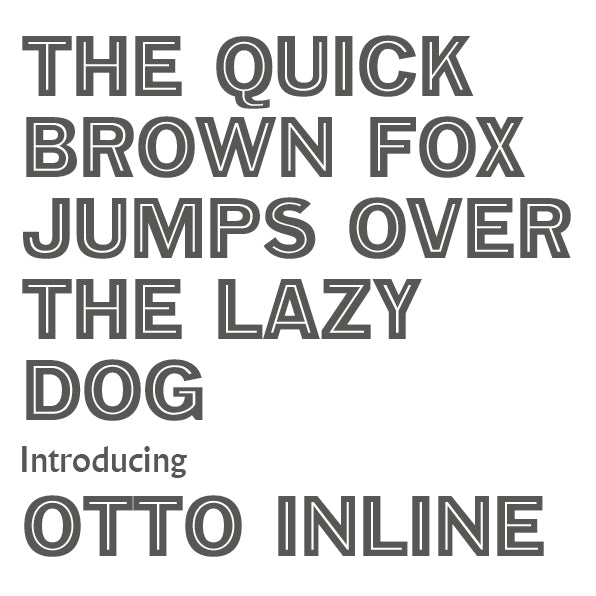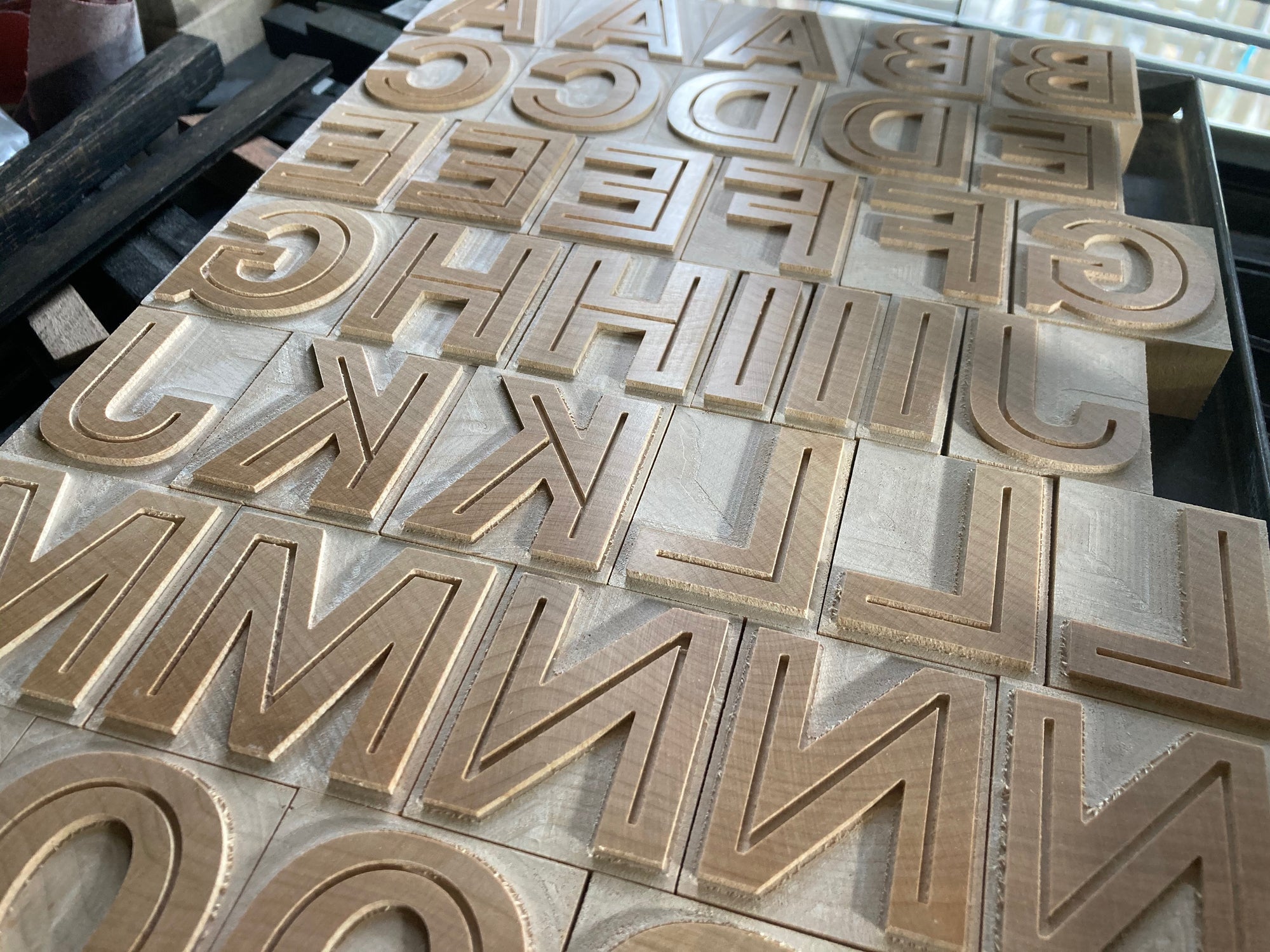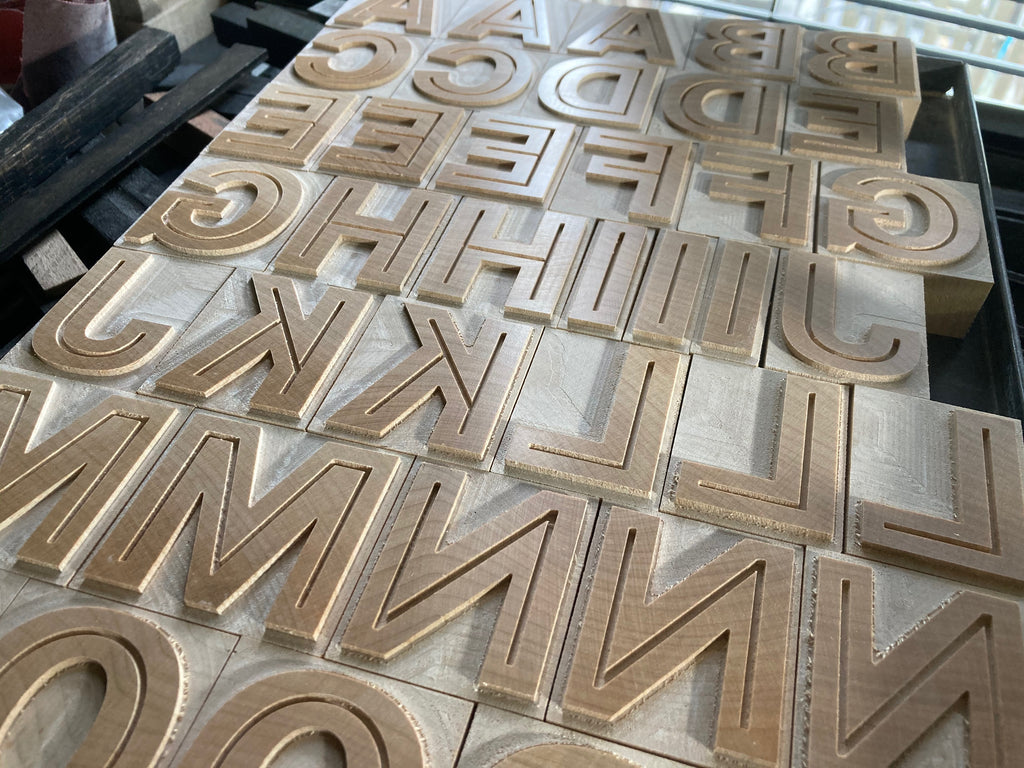
‘Otto Inline' Letterpress woodtype typeface
Introducing 'Otto Inline' - Redrawn by Richard Small who rescued the original woodtype.
10 line (42.3mm) version cut from end grain hardwood using a combination of modern CNC technology and traditional hand woodworking tools (including an original printers saw), made to English type-high (0.918in or 23.3mm) within plus or minus 0.1mm tolerance, sealed with shellac and hand finished with a traditional polished printing surface.
Endgrain hardwood, clear shellac.